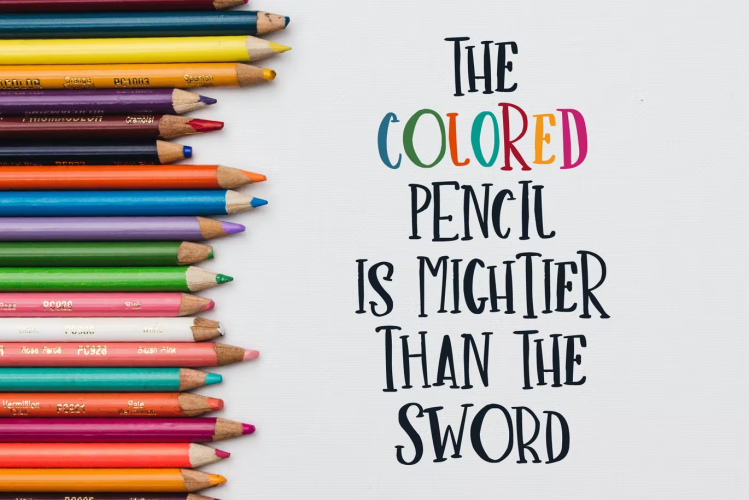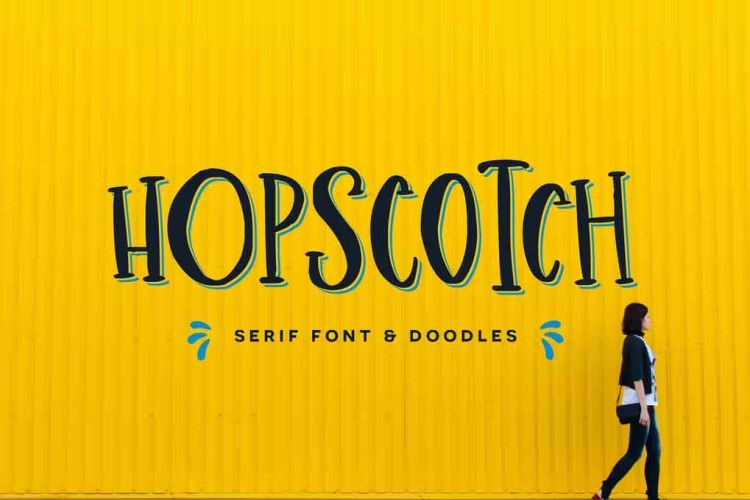
Hopscotch Font
ABOUT HOPSCOTCH
Hopscotch is a perfectly fun summer style font that includes hand written doodles! This adorable serif font has a bouncy baseline and comes with a full set of alternates when you use the capital letters. Perfect for prints, invitations, greeting cards, custom typography,and more!
Where Hopscotch Font works best
Reports, white papers and book interiors hold the eye longer when the text face has real serifs; Hopscotch Font keeps that rhythm without looking old-fashioned.
Food, spirits and cosmetics brands lean on serif wordmarks to suggest age and care. Hopscotch Font gives that signal at wordmark size.
Set Hopscotch Font for the body of an award or a diploma and keep the recipient name in a script; the pairing is what makes a document feel official.
What kind of work does Hopscotch Font suit?
It sits in the Serif Fonts group and reads as about, handwritten, hopscotch, playful. That makes it a candidate wherever those qualities help: headings, packaging, social graphics and brand work. Set it at the size you plan to use before deciding.